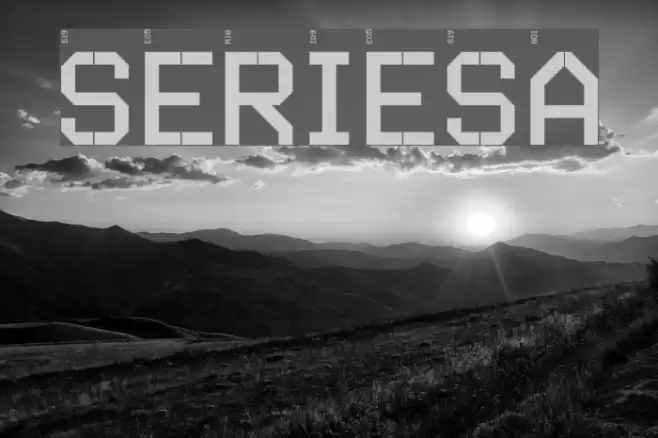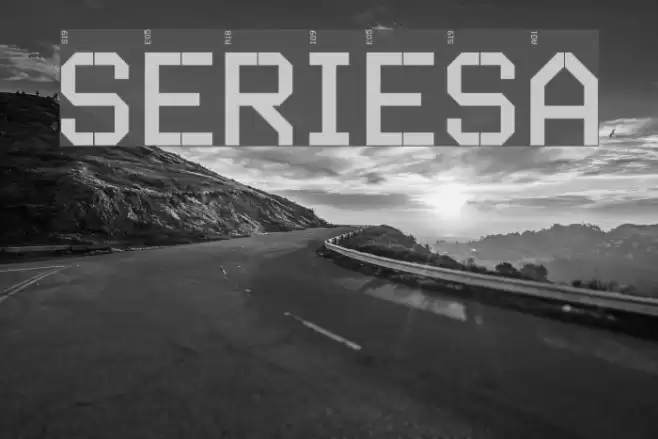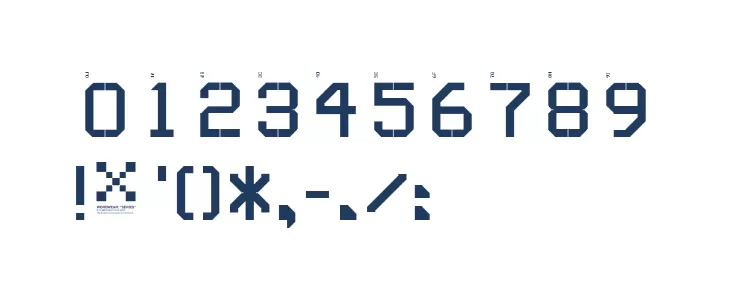
SERIESA Font
SERIESA Description
This font features a bold, geometric style with a modern, digital aesthetic. The characters are constructed with thick, block-like strokes that create a strong visual impact. Each letter and number is designed with sharp angles and straight lines, giving it a futuristic and technical appearance. The uniformity in stroke width across all characters contributes to a cohesive and structured look. Special characters maintain the same bold and angular design, ensuring consistency throughout the font set. This typeface is ideal for projects that require a contemporary and robust visual presence.
- Proposed Projects: Ideal for tech branding, digital interfaces, video game graphics, and futuristic designs.